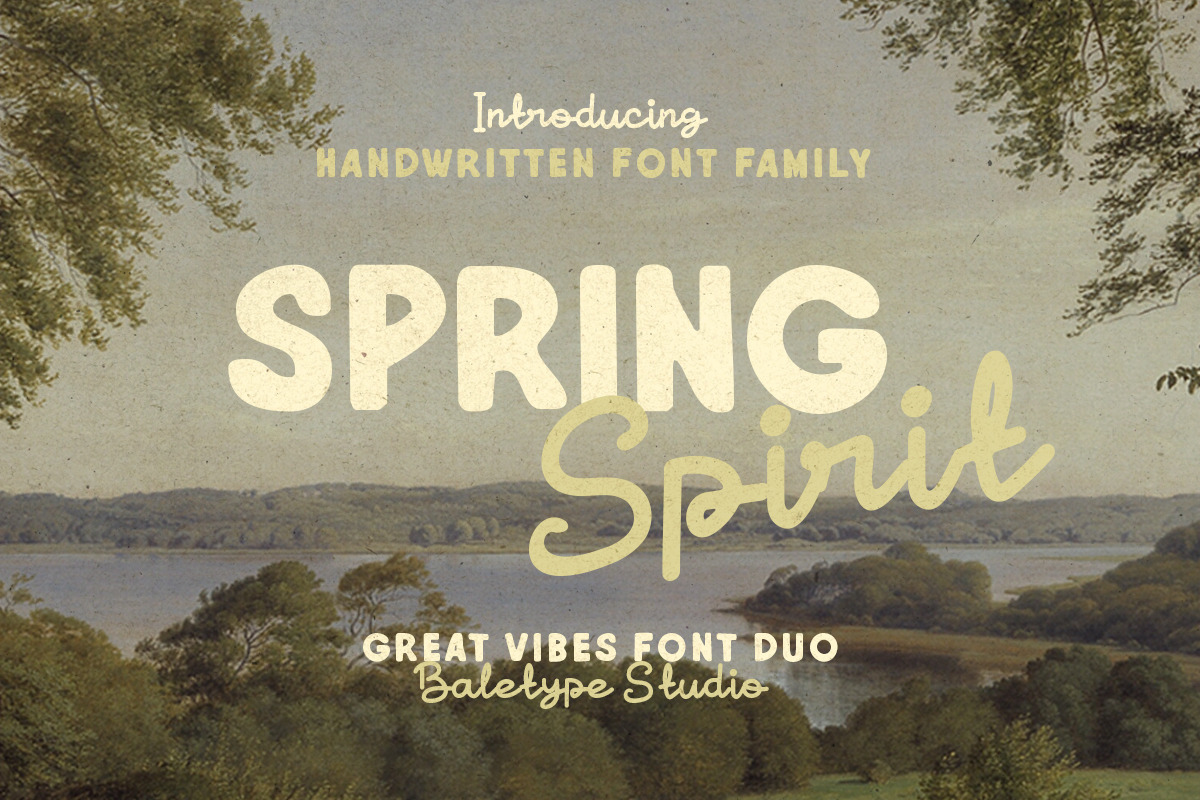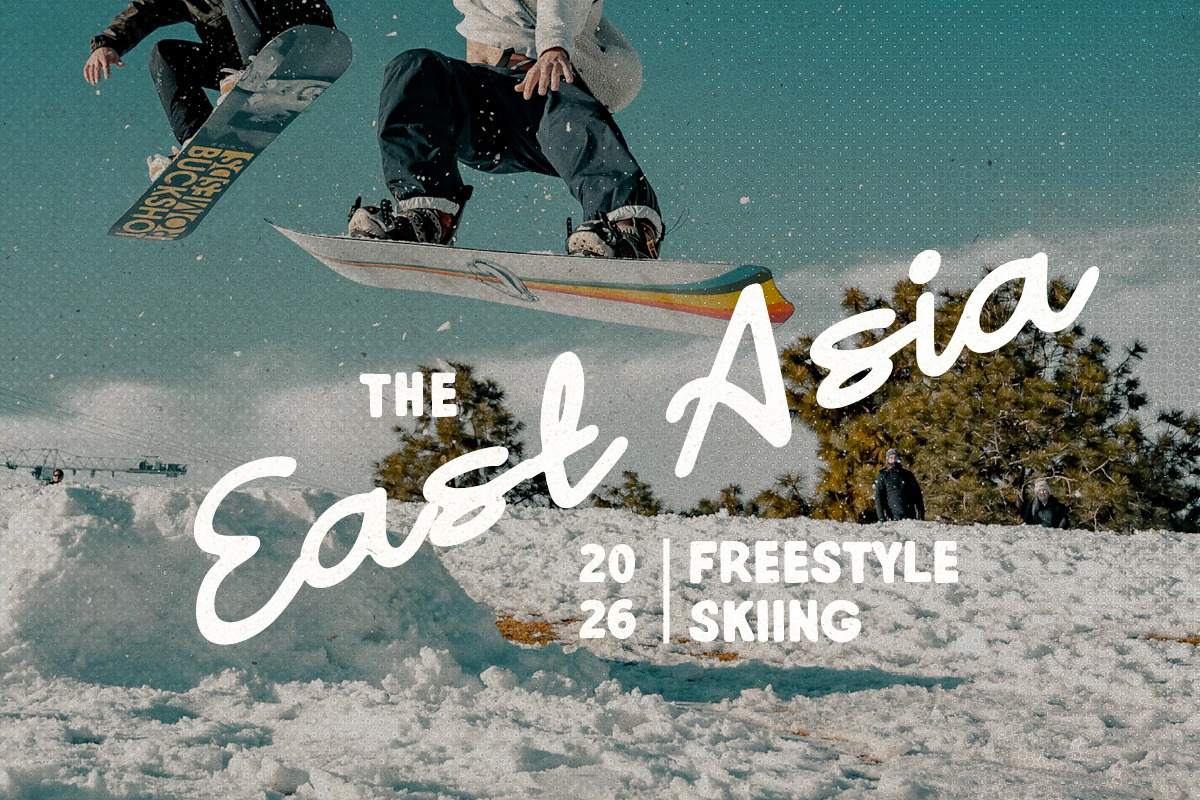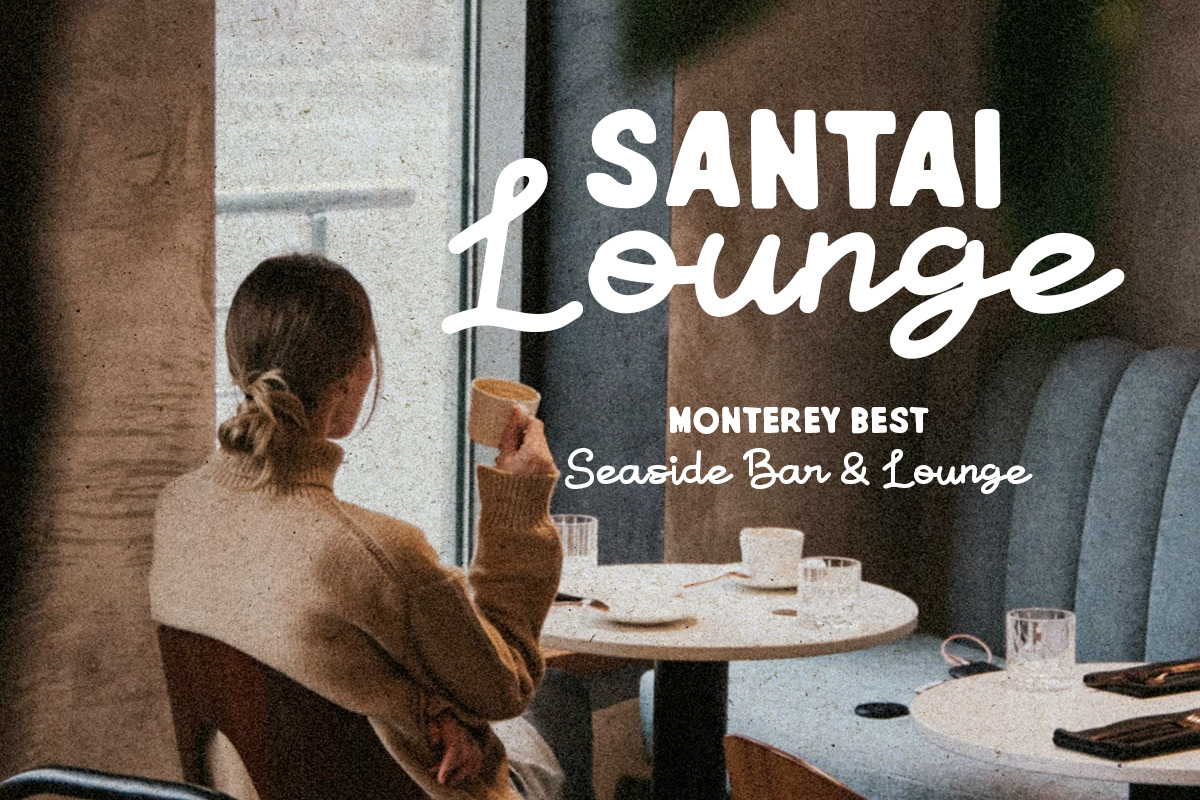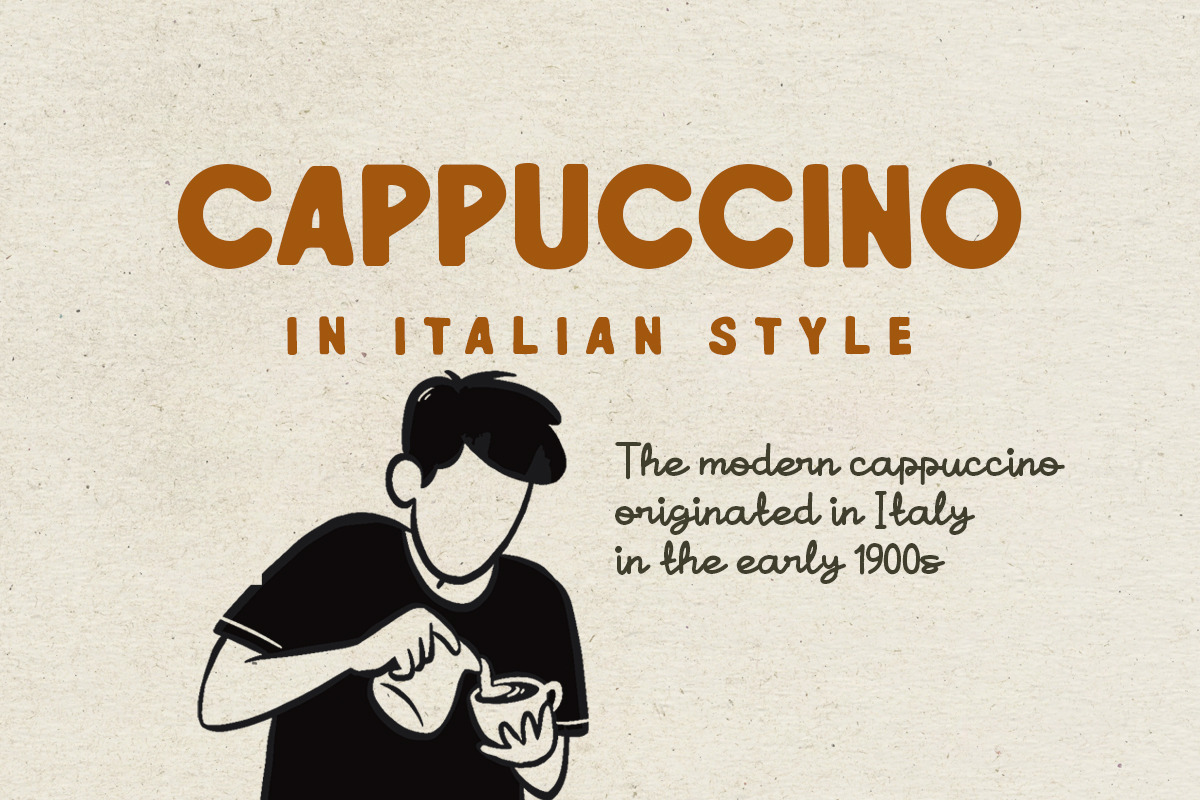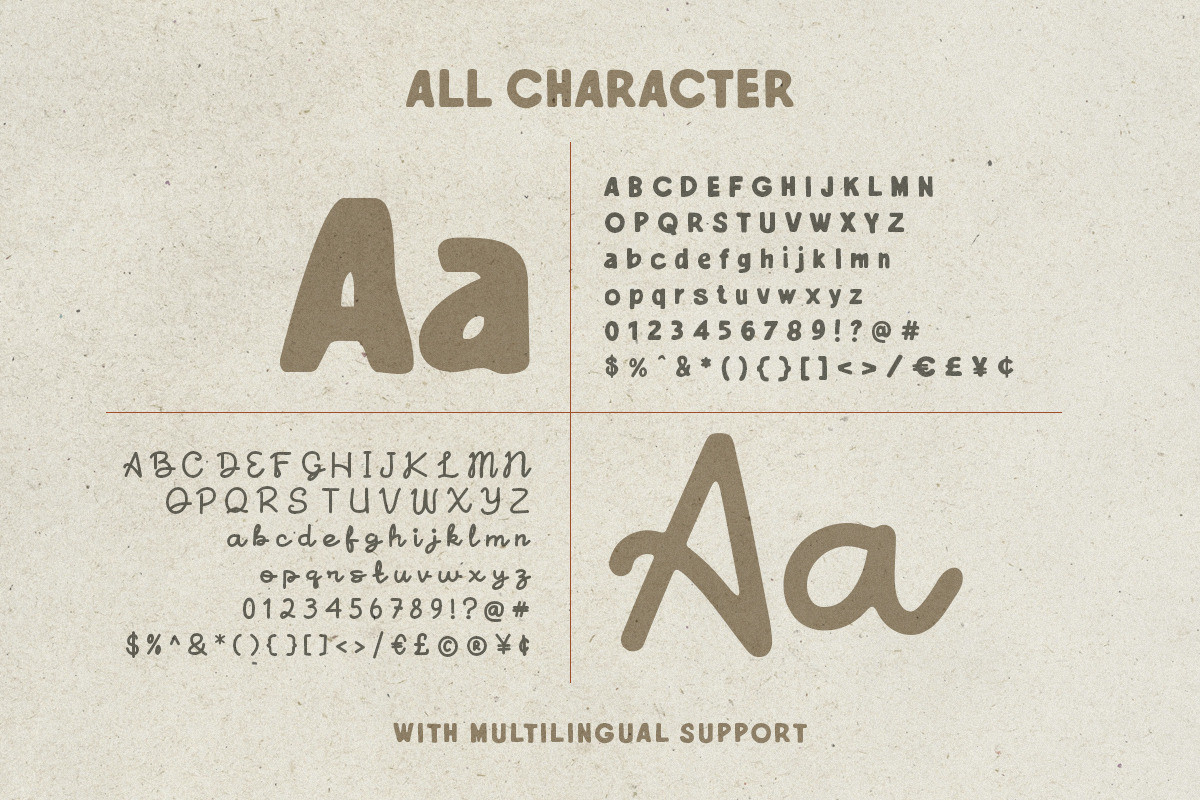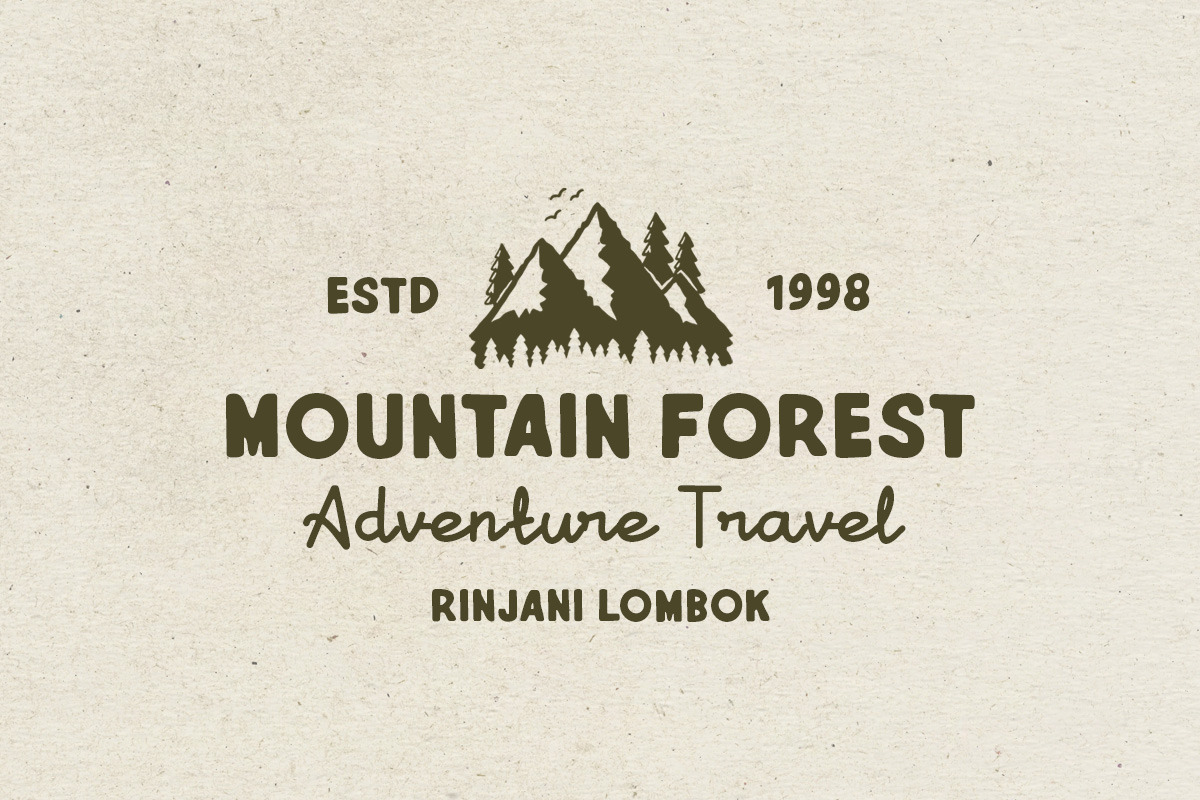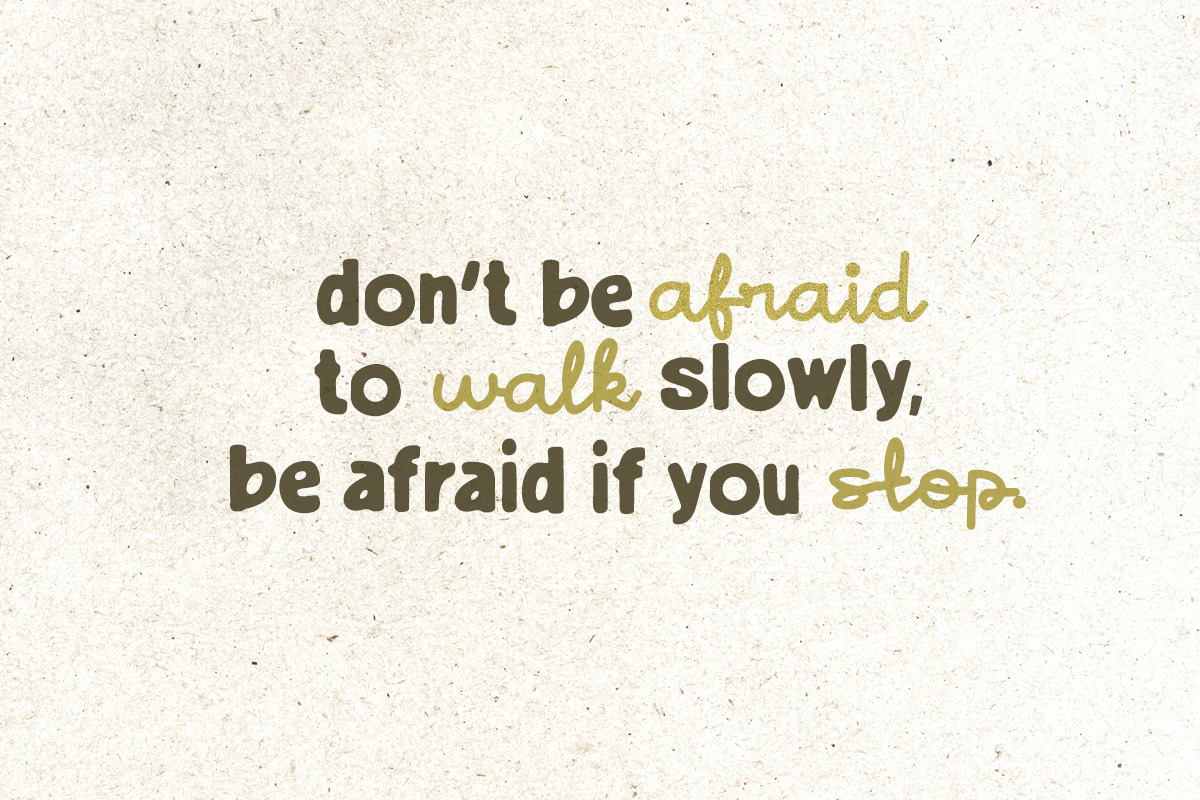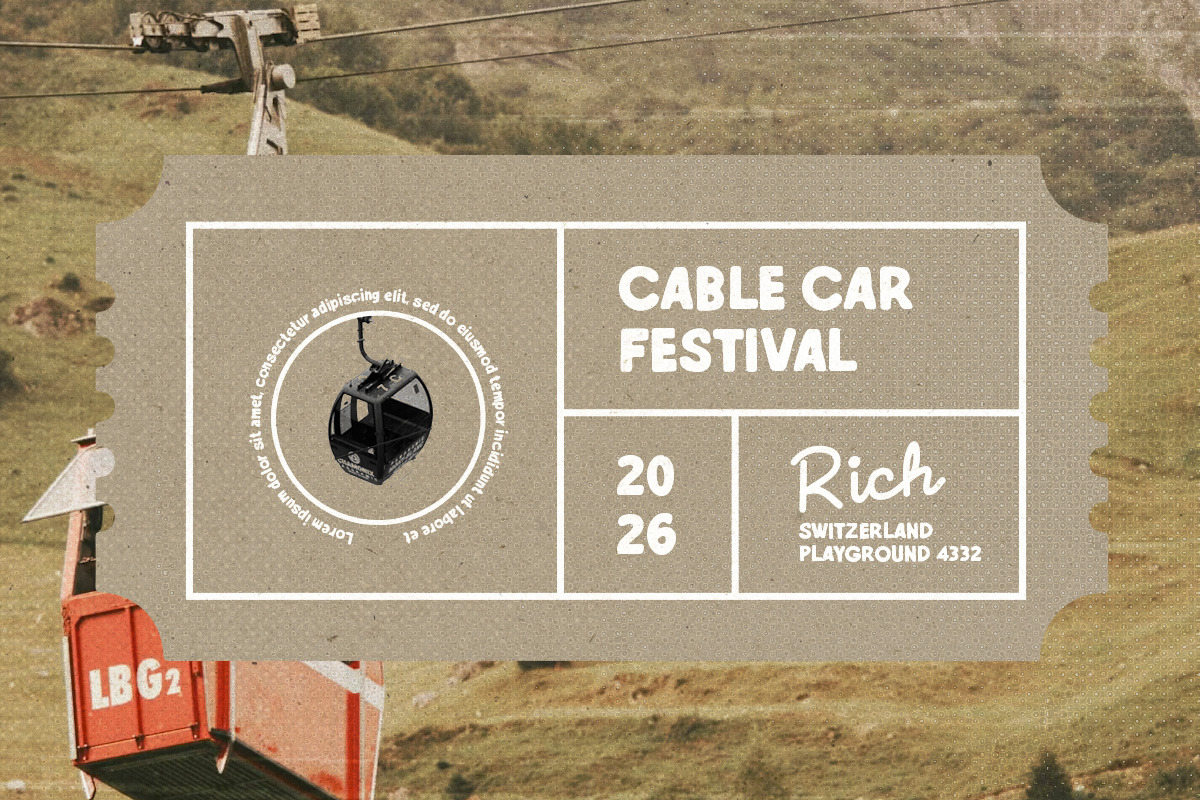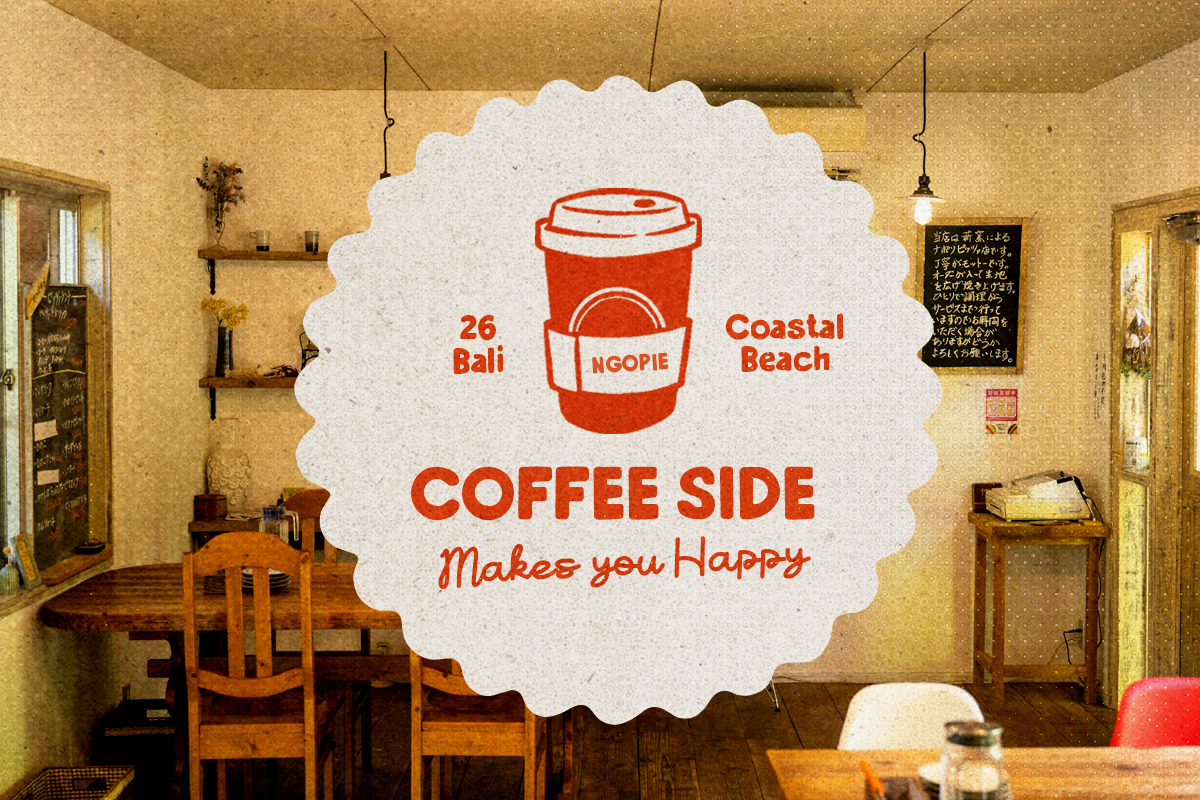
Spring Spirit - Handwritten Font Duo
Spring Spirit is a handwritten font duo with bold sans serif and monoline script. With the pack of two fonts, you can use both for any purpose such as logotype, quote, branding, or any project that needs handmade looks. This font duo also support multi language.